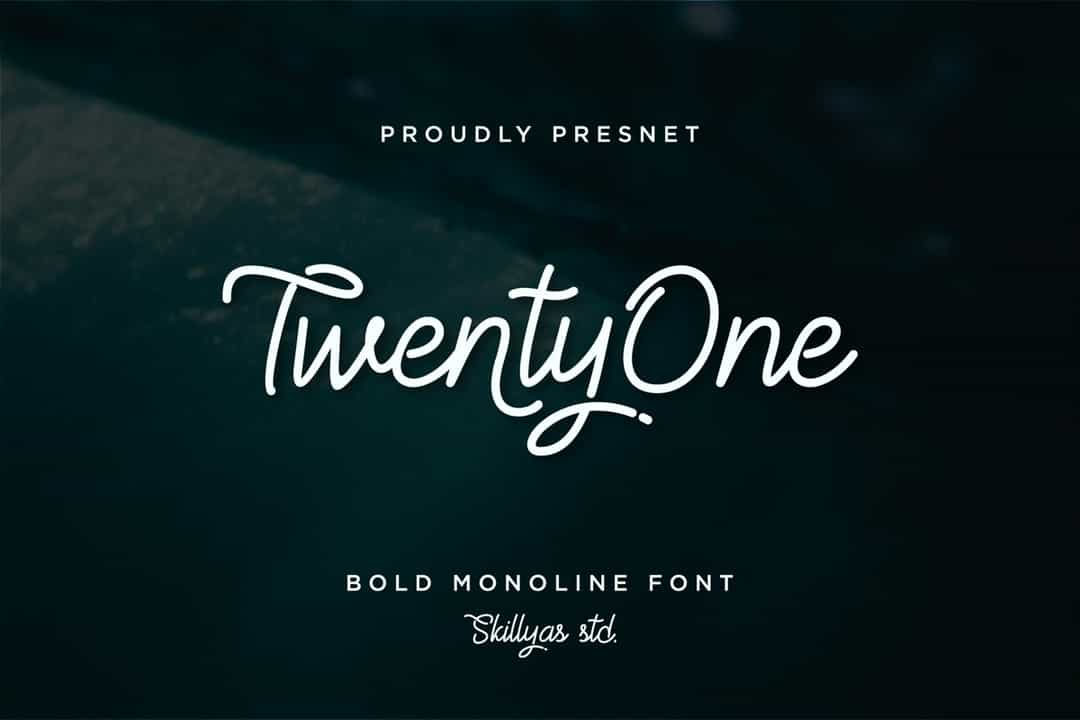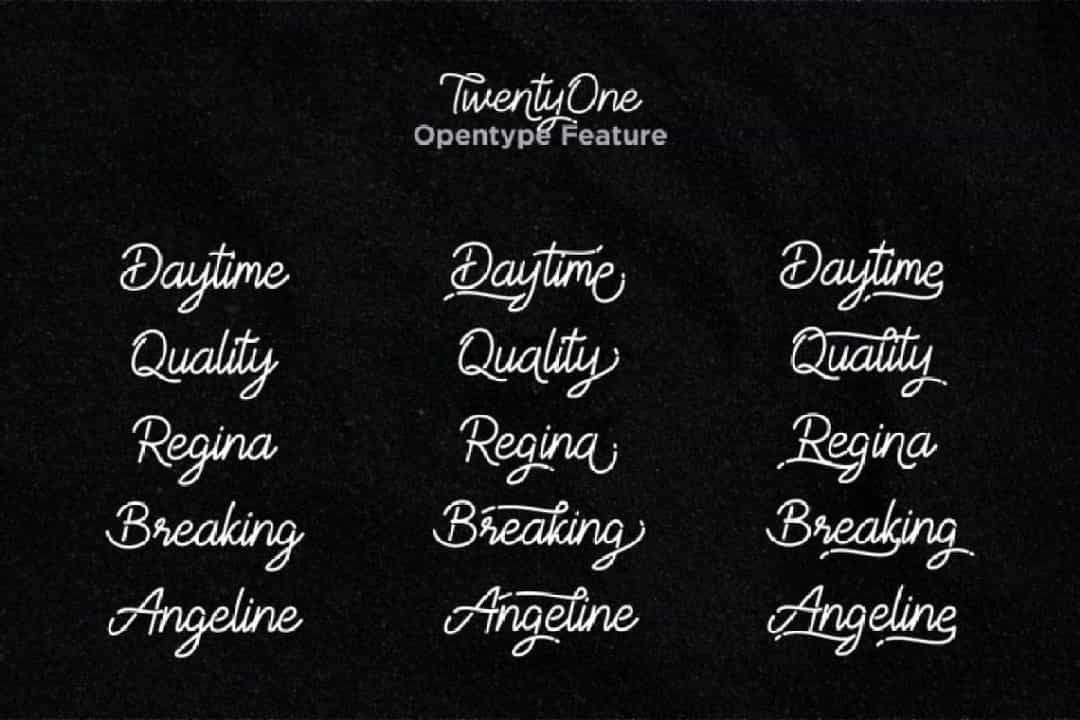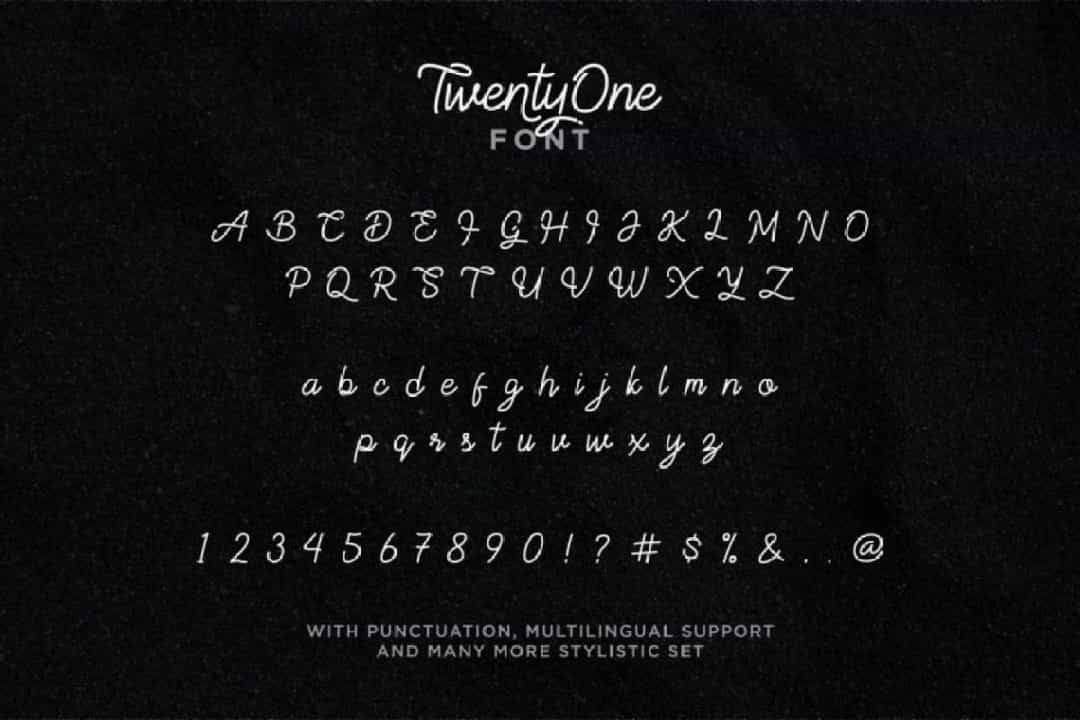
Discover TwentyOne Font, part of the Handwritten Script Monoline Personal collection—a versatile and unique font perfect for adding a personal touch to your projects. Download it for free and enjoy crafting designs with style, from invitations to social media posts. This font is available exclusively for personal use, giving you the freedom to create without limits. Unlock your creativity with TwentyOne Font today!
It is a semi bold monoline script font with twenty one fonts. This font is suitable for any project that requires individual handwriting style such as wedding designs, advertisements, social media posts, packaging designs, product labels, watermark invitations, stationery or any other project that require such type of font.